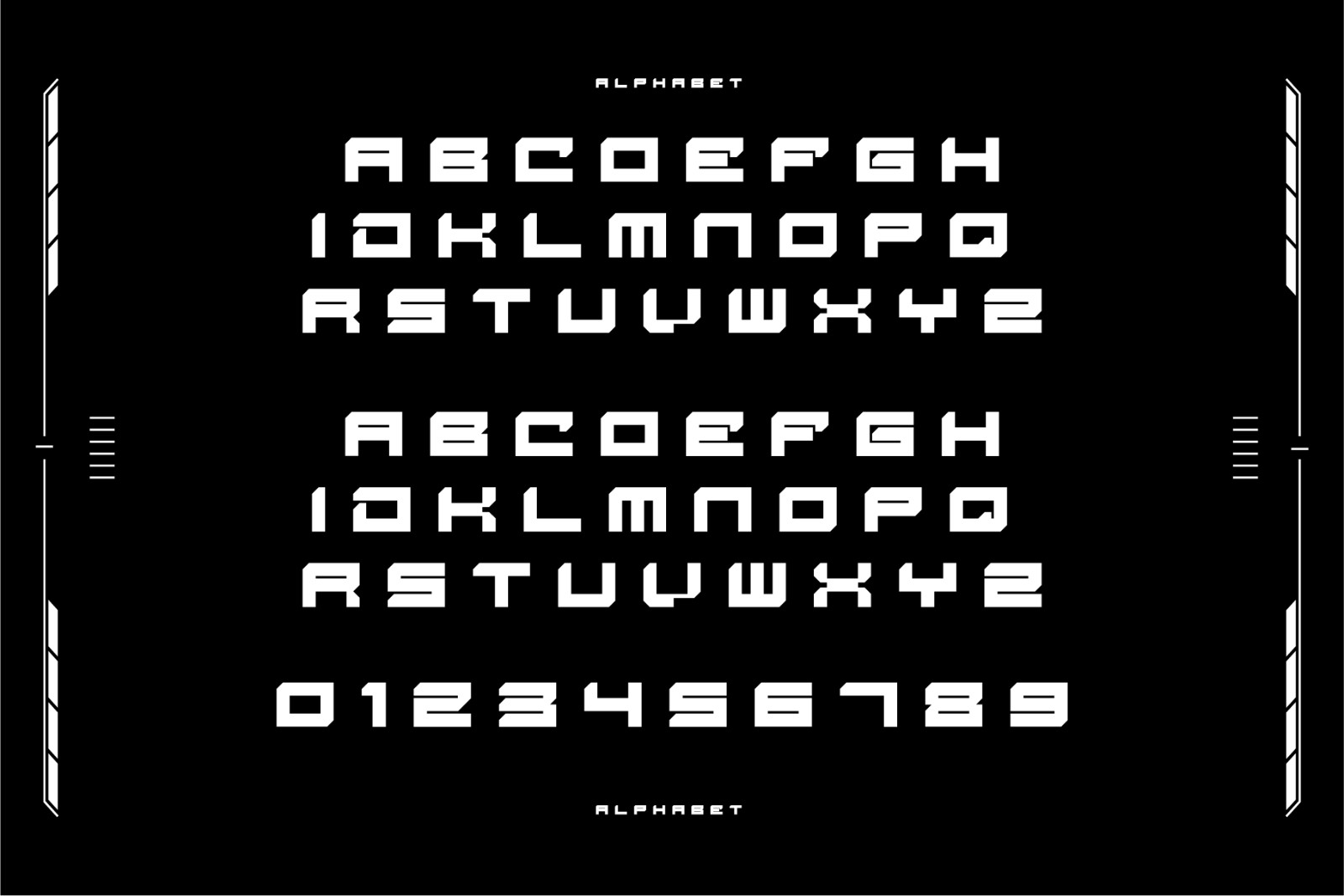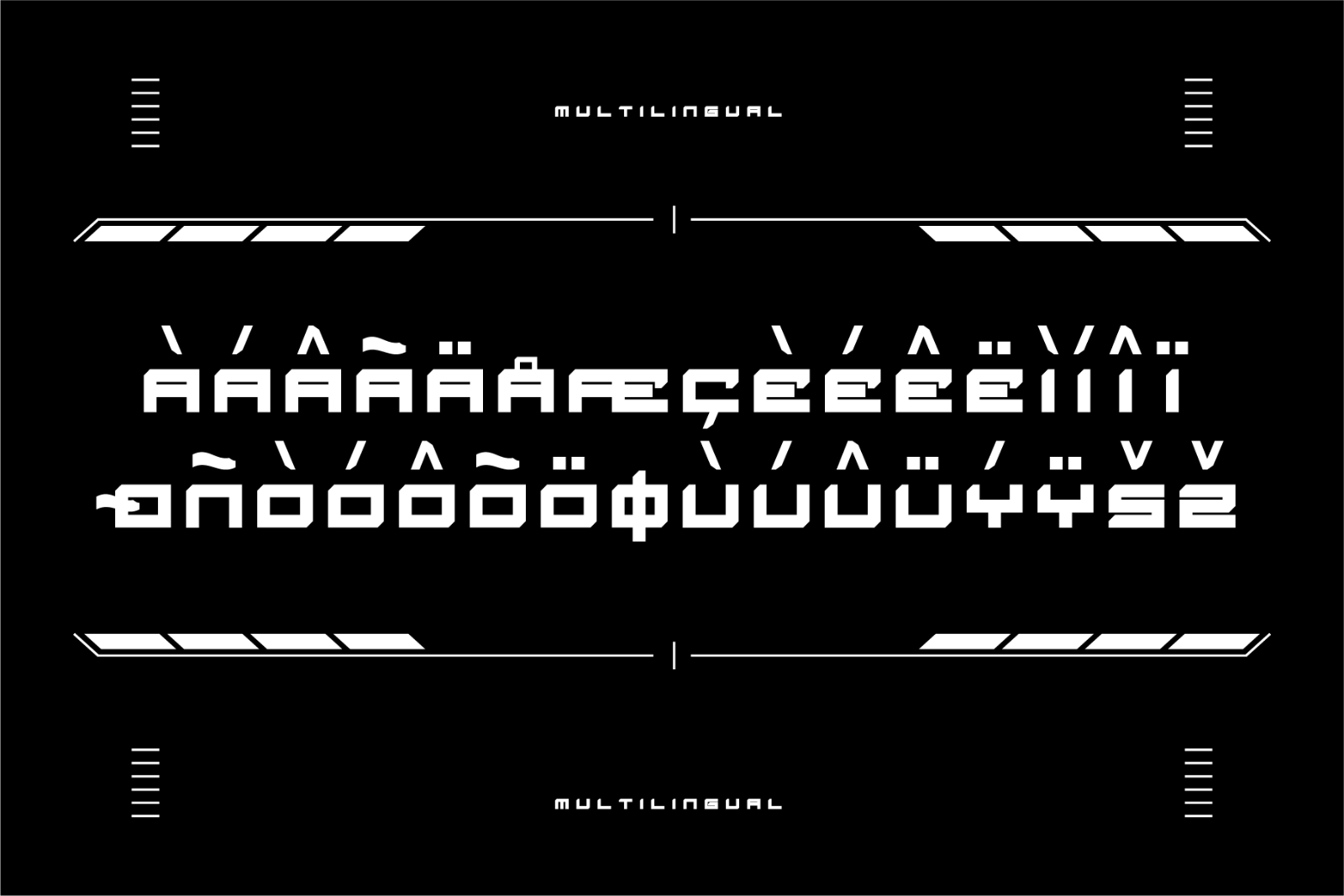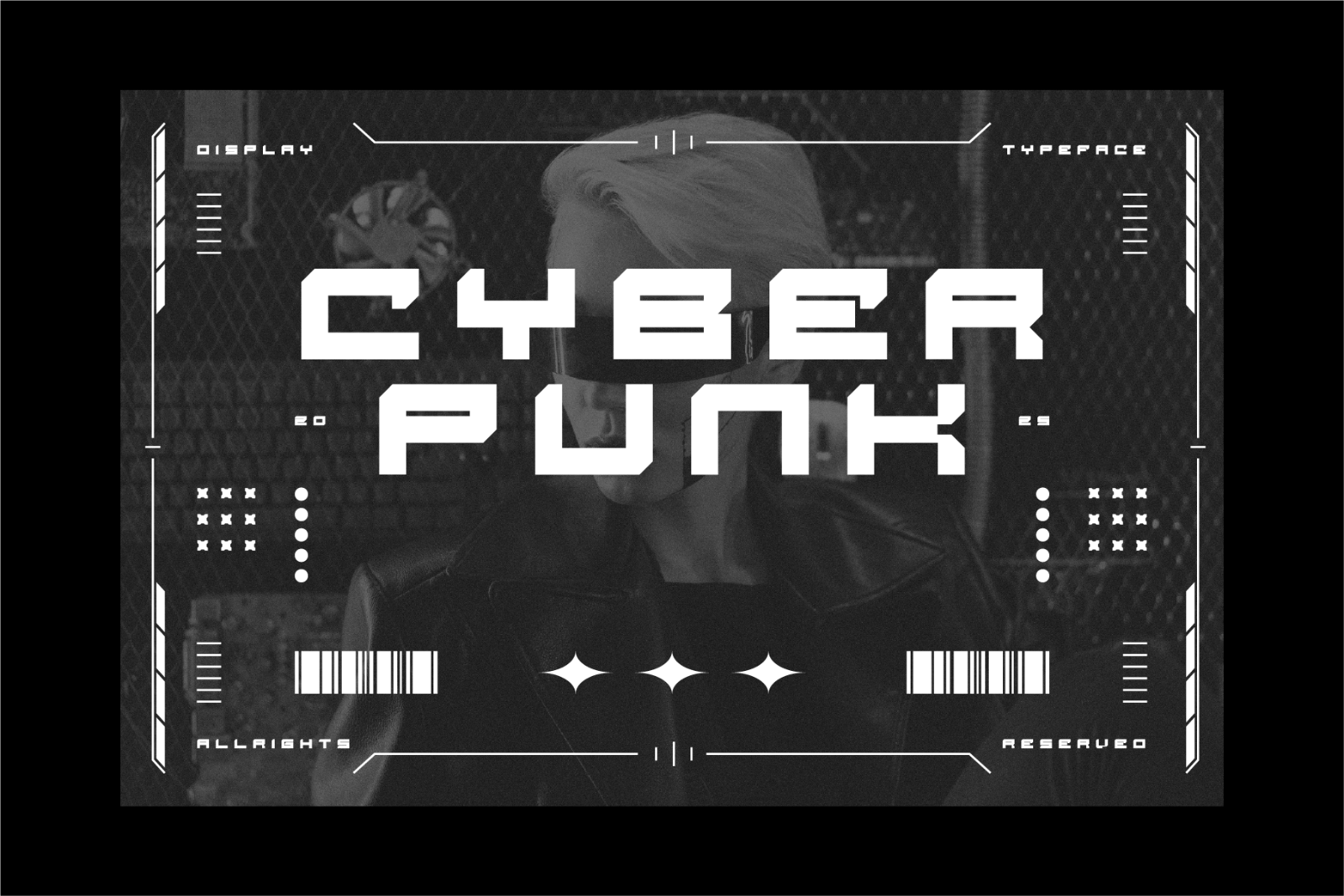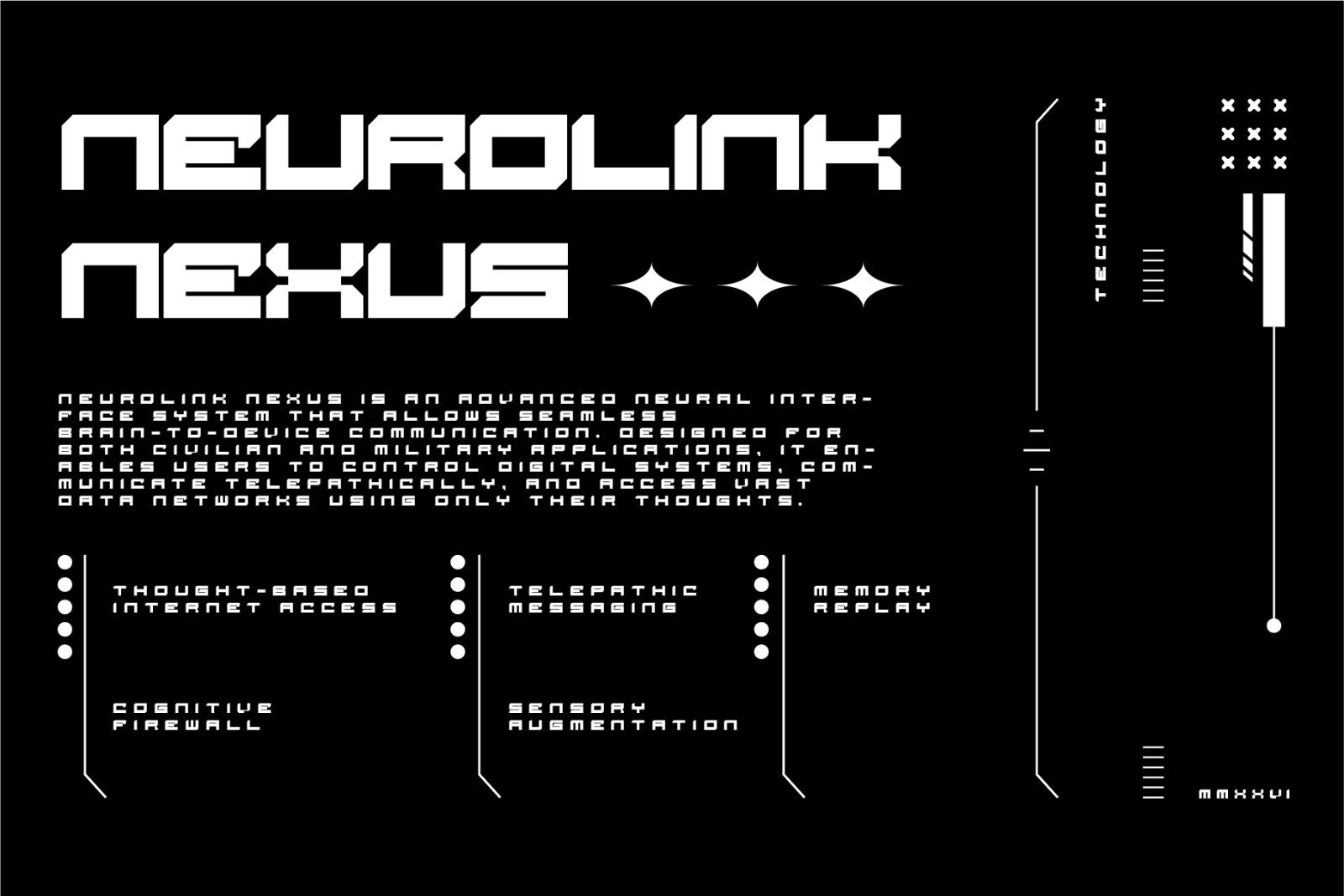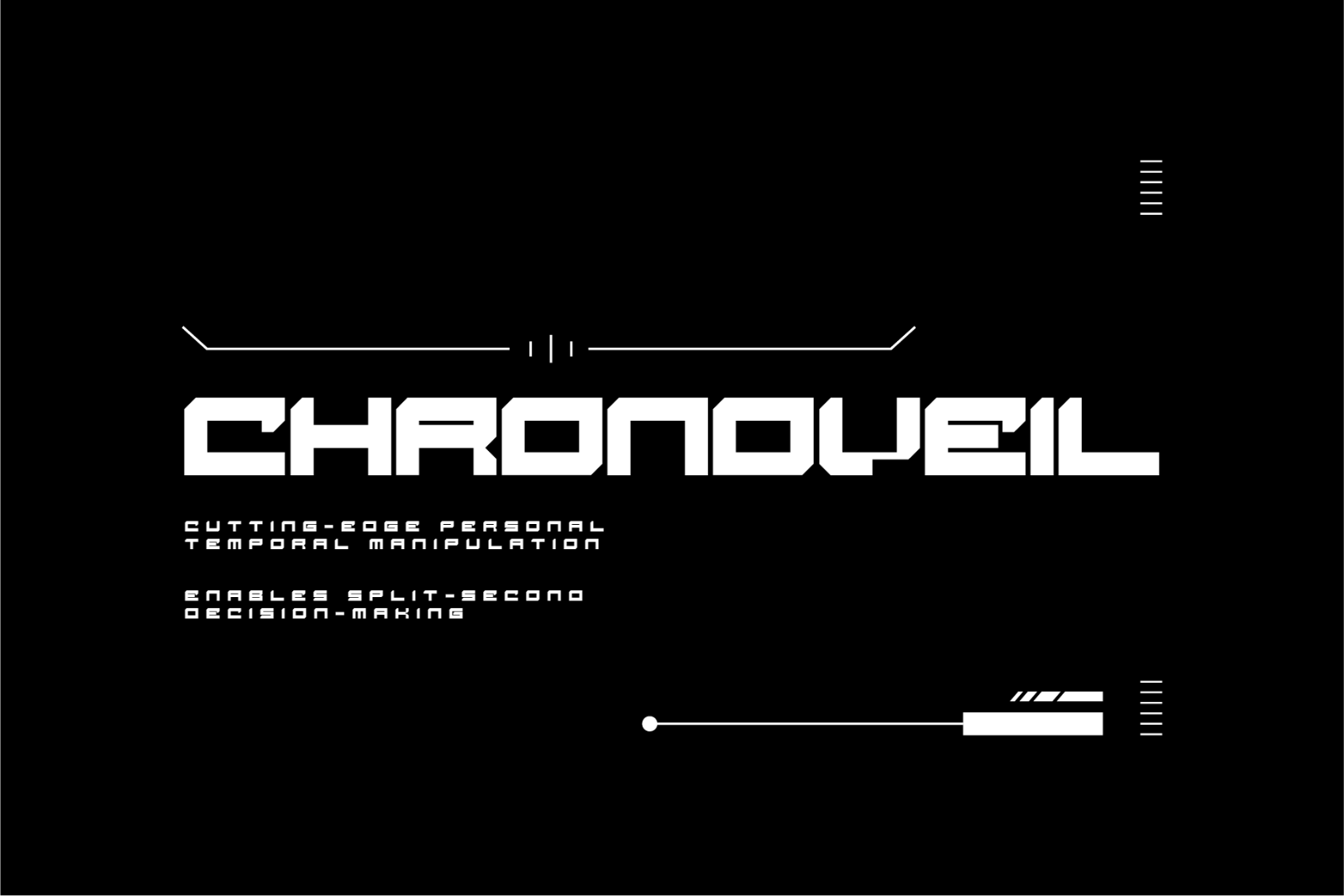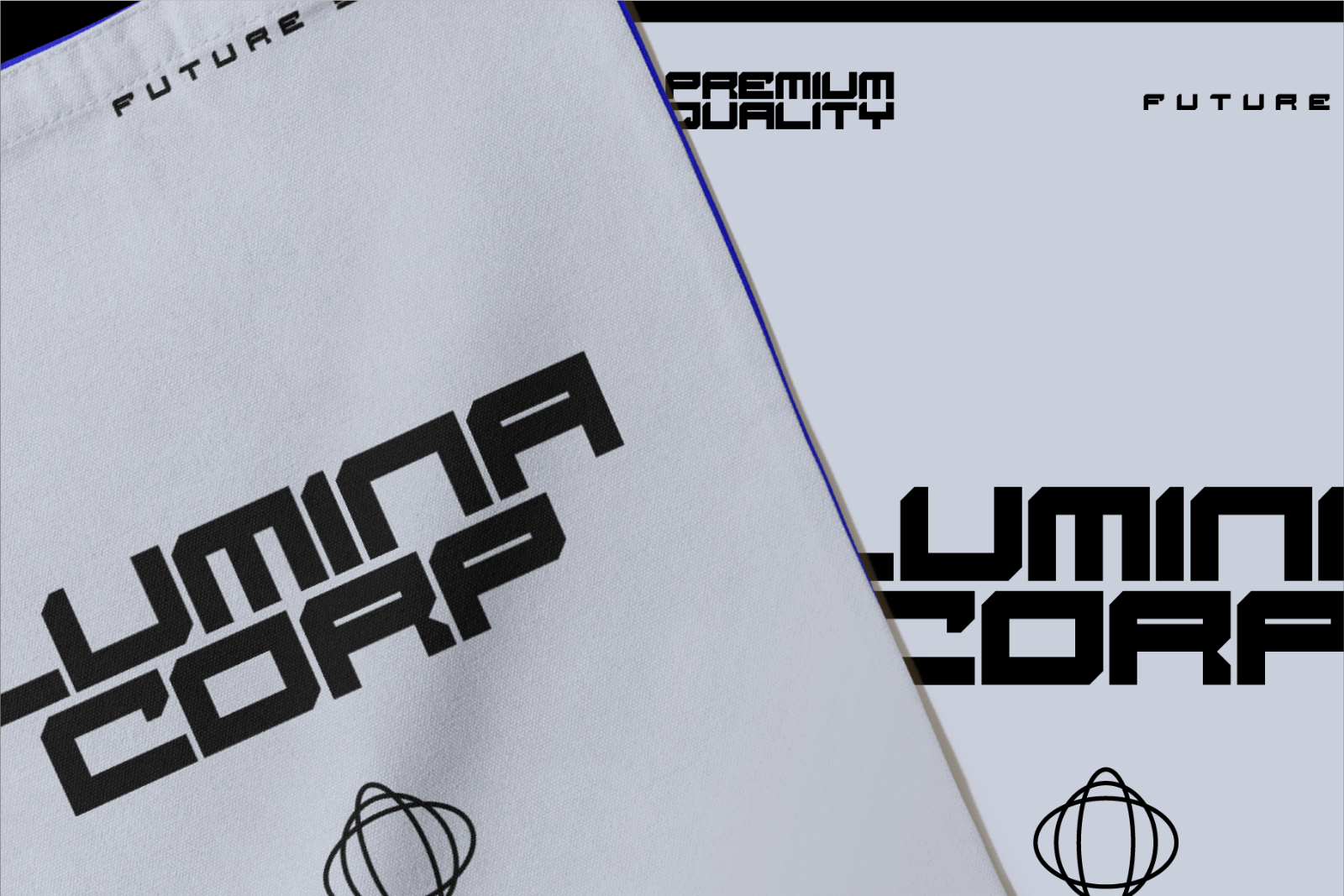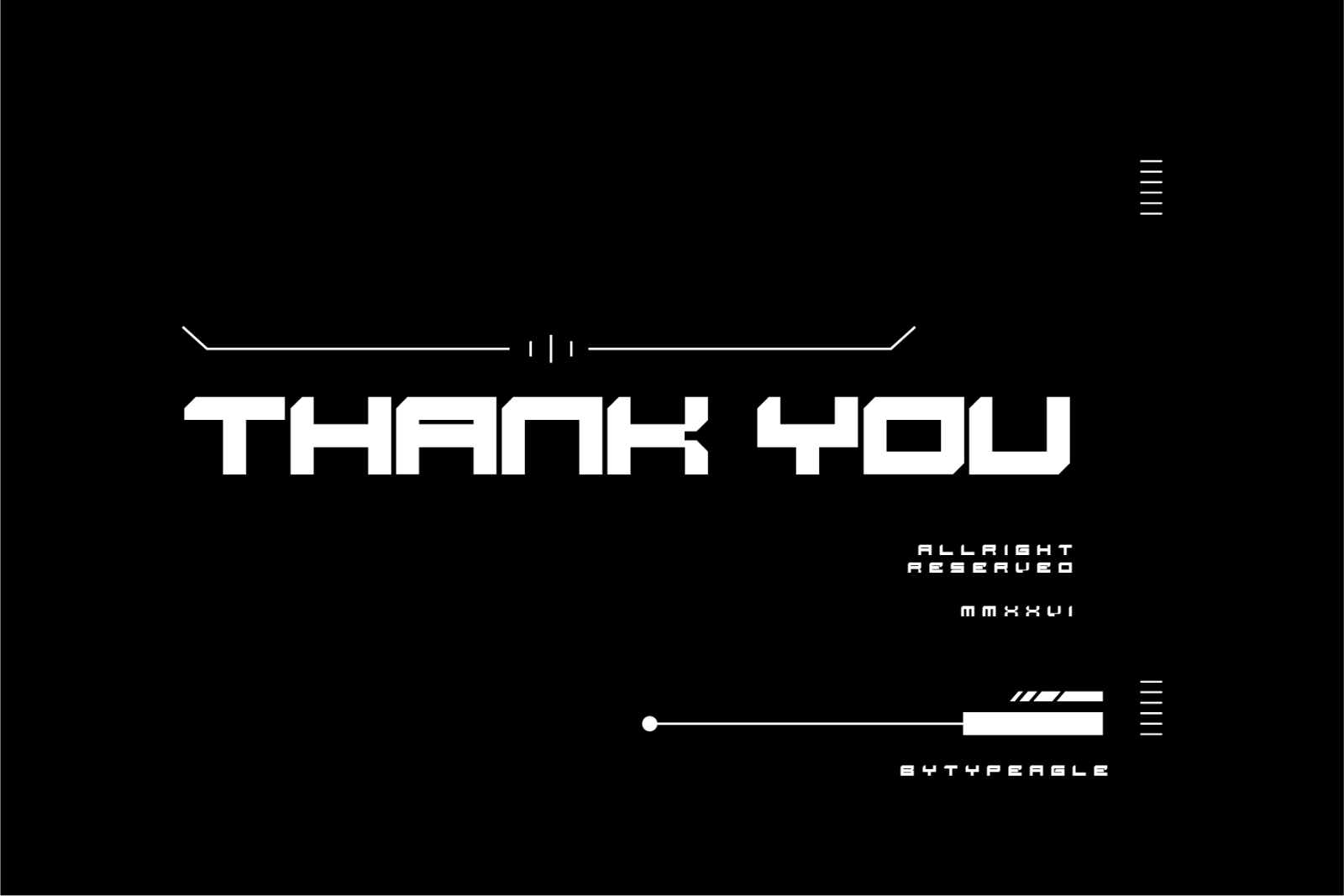
Tyxor is a futuristic display font designed with a bold, modern, and technological aesthetic. Inspired by cyber, digital, and sci-fi visual elements, Tyxor features sharp geometric forms, distinctive letter structures, and a dynamic appearance that creates a strong futuristic identity.